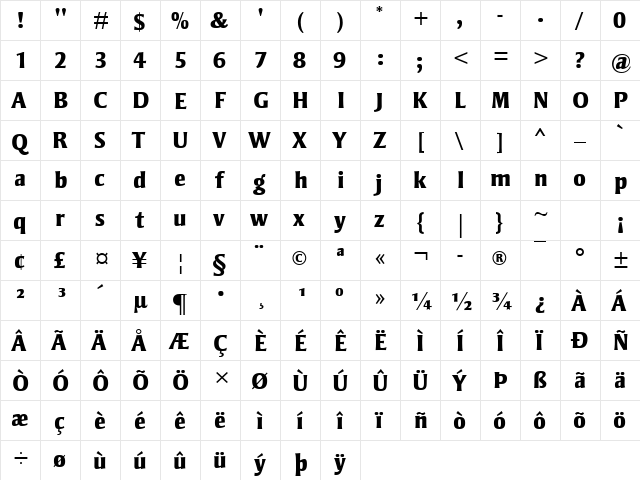
Strayhorn MT Extra Bold Regular
| Foundry | Agfa Monotype Corporation |
Design Context for Strayhorn MT Extra Bold Typeface
Strayhorn MT Extra Bold is a composed and adaptable typeface that performs quietly and consistently across a wide range of design contexts. The heavy weight commands attention and anchors typographic hierarchies.